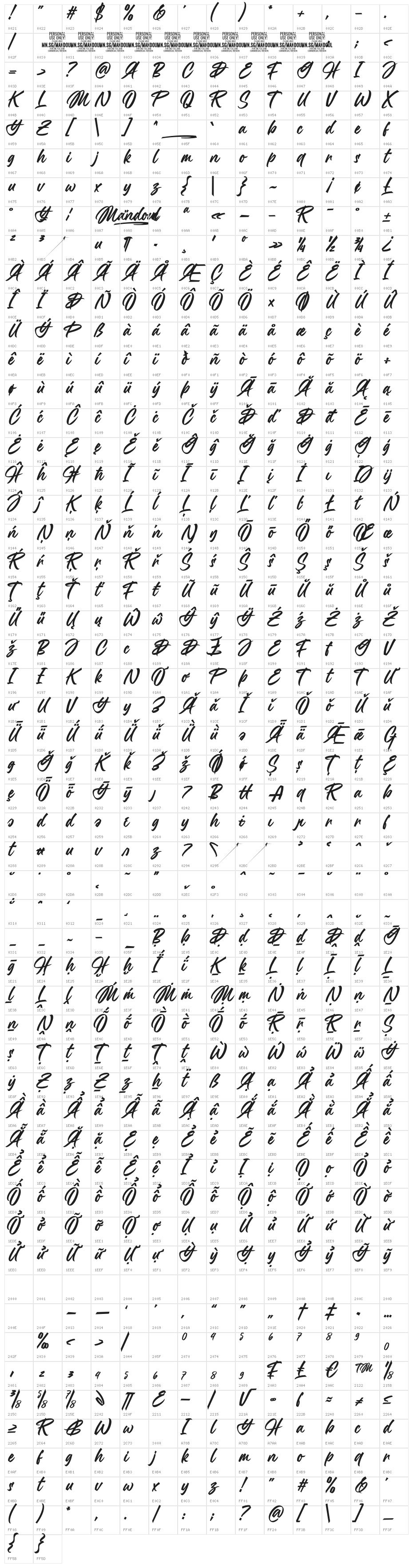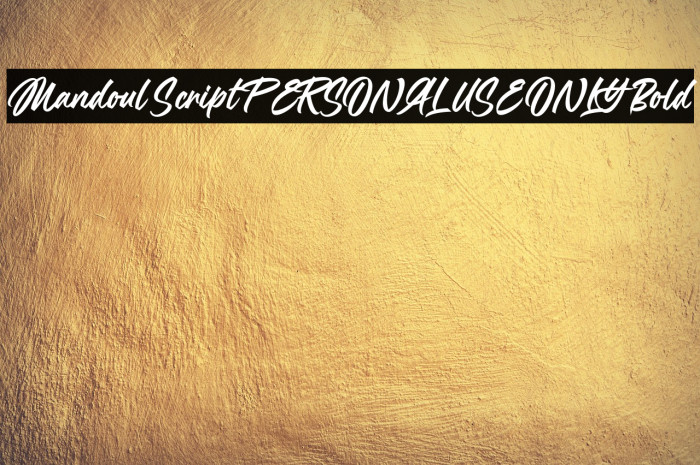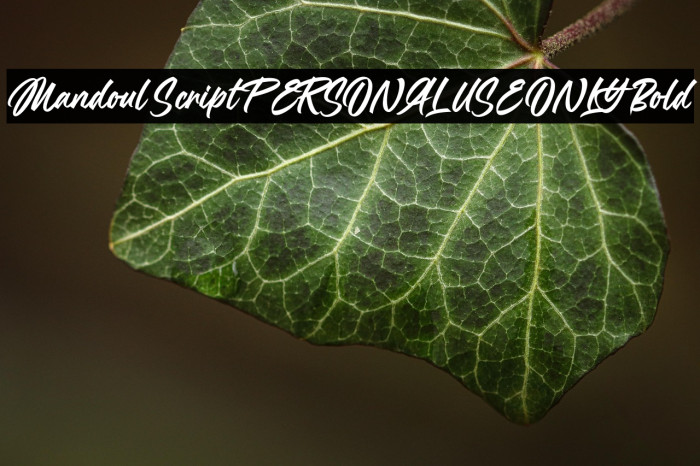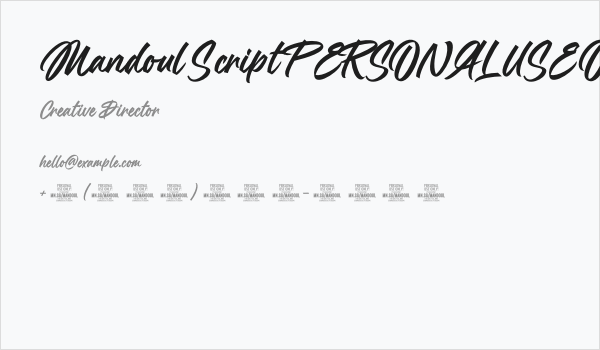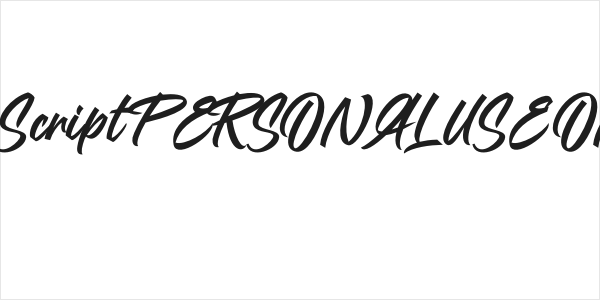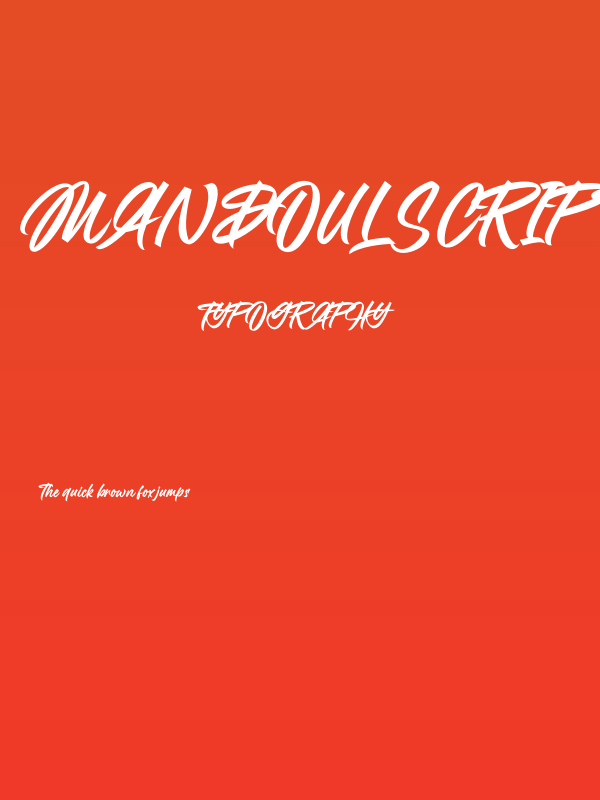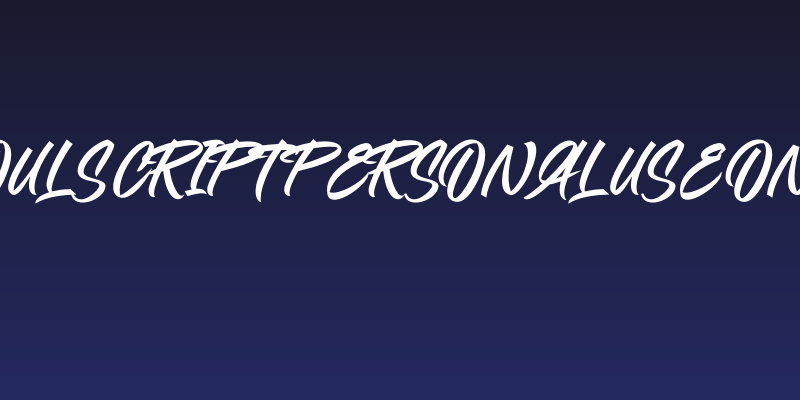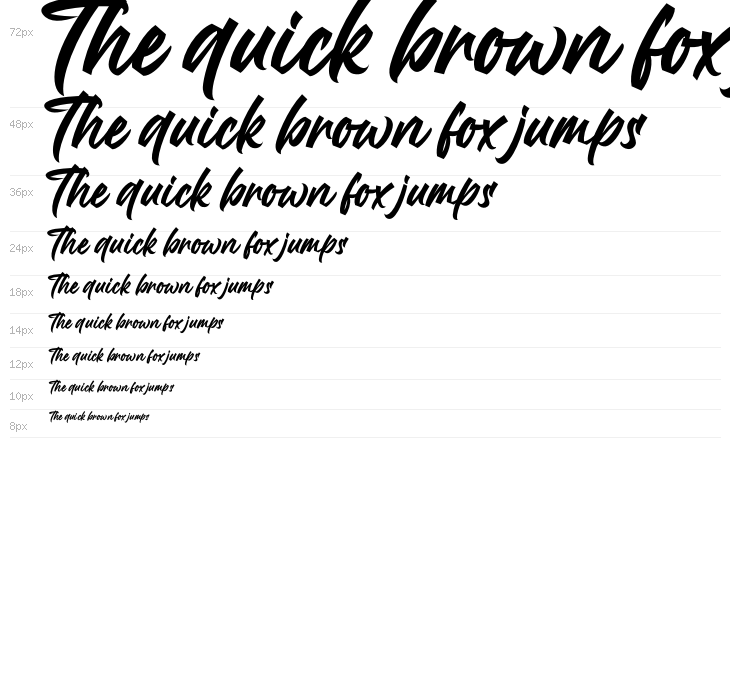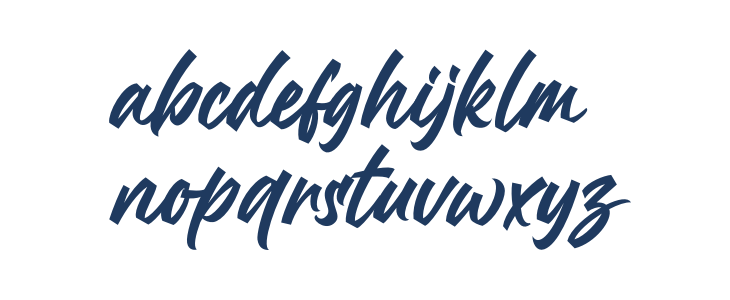
Mandoul Script PERSONAL USE ONLY Bold Font
Mandoul Script PERSONAL USE ONLY Bold Description
This font features a bold, expressive script style with fluid, connected strokes that convey a sense of elegance and dynamism. The characters are designed with a slight slant, enhancing the cursive appearance and adding a touch of sophistication. The uppercase letters are particularly striking, with sweeping curves and flourishes that make them stand out. The lowercase letters maintain a consistent flow, ensuring readability while preserving the artistic flair. The numerals and special characters are crafted to match the overall style, providing a cohesive look across all elements.
| Proposed Projects | Ideal for branding, invitations, greeting cards, and any project requiring a touch of elegance and personality. |